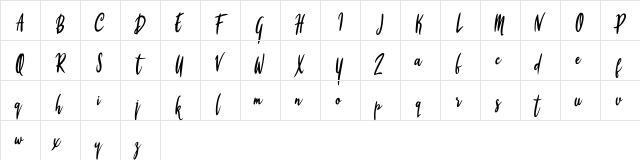
Firyana Beauty Font Preview
Firyana Beauty Firyana Beauty
Firyana Beauty Font Details
| Style | Firyana Beauty |
| Foundry | Cundrawan (cove703) |
| Designer | Cundrawan (cove703) |
Design Context for Firyana Beauty Typeface
Firyana Beauty is a composed and adaptable typeface that performs quietly and consistently across a wide range of design contexts.